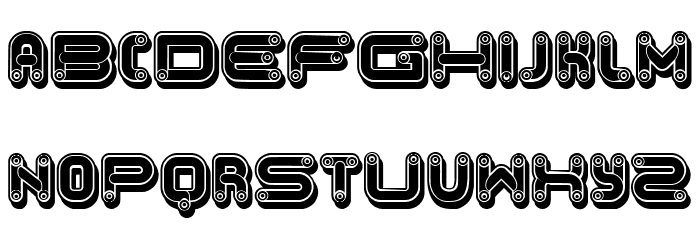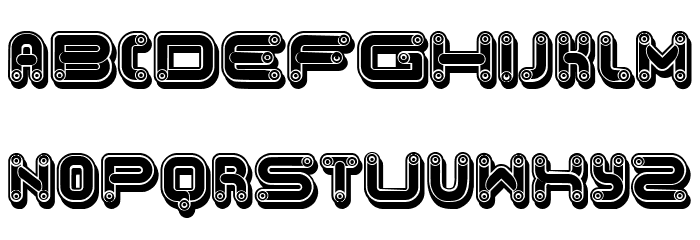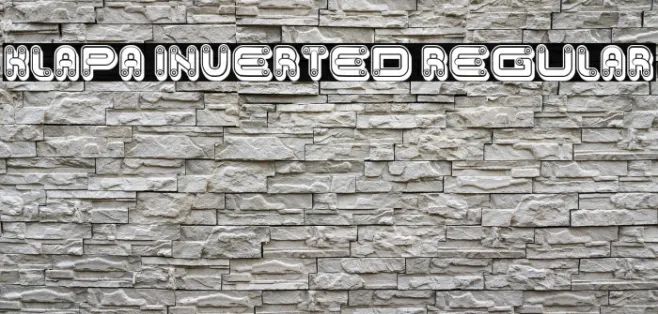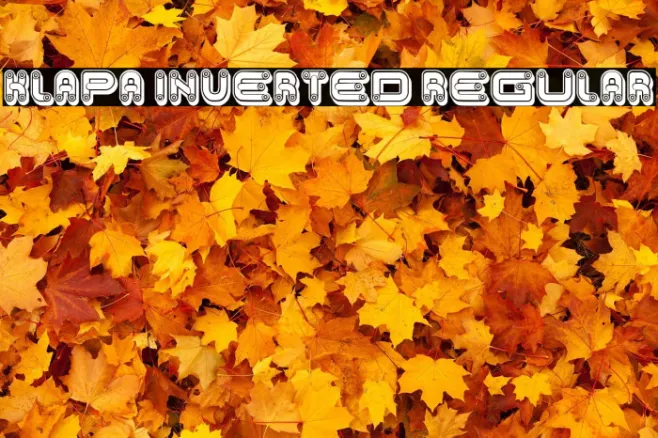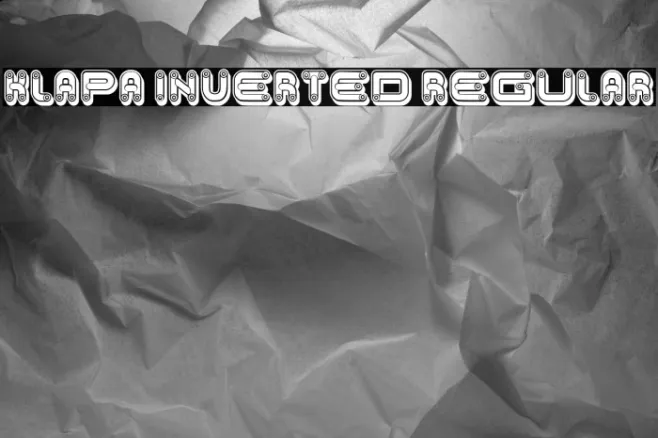
Klapa Inverted Regular Font
This font features a bold, mechanical design with a unique, industrial aesthetic. Each character is composed of thick, interconnected lines with circular elements that resemble gears or mechanical parts, giving it a futuristic and tech-inspired look. The letters are uppercase and have a consistent width, creating a uniform appearance. The design includes intricate details that add depth and dimension, making it stand out in any design project. The font's boldness and distinct style make it suitable for attention-grabbing headlines or creative branding projects.
A bold, mechanical font with an industrial, tech-inspired design.
- Font: Klapa Inverted Regular
- Proposed Projects: Ideal for tech branding, futuristic posters, video game titles, and industrial-themed designs.
- Overall Style: Futuristic, Industrial